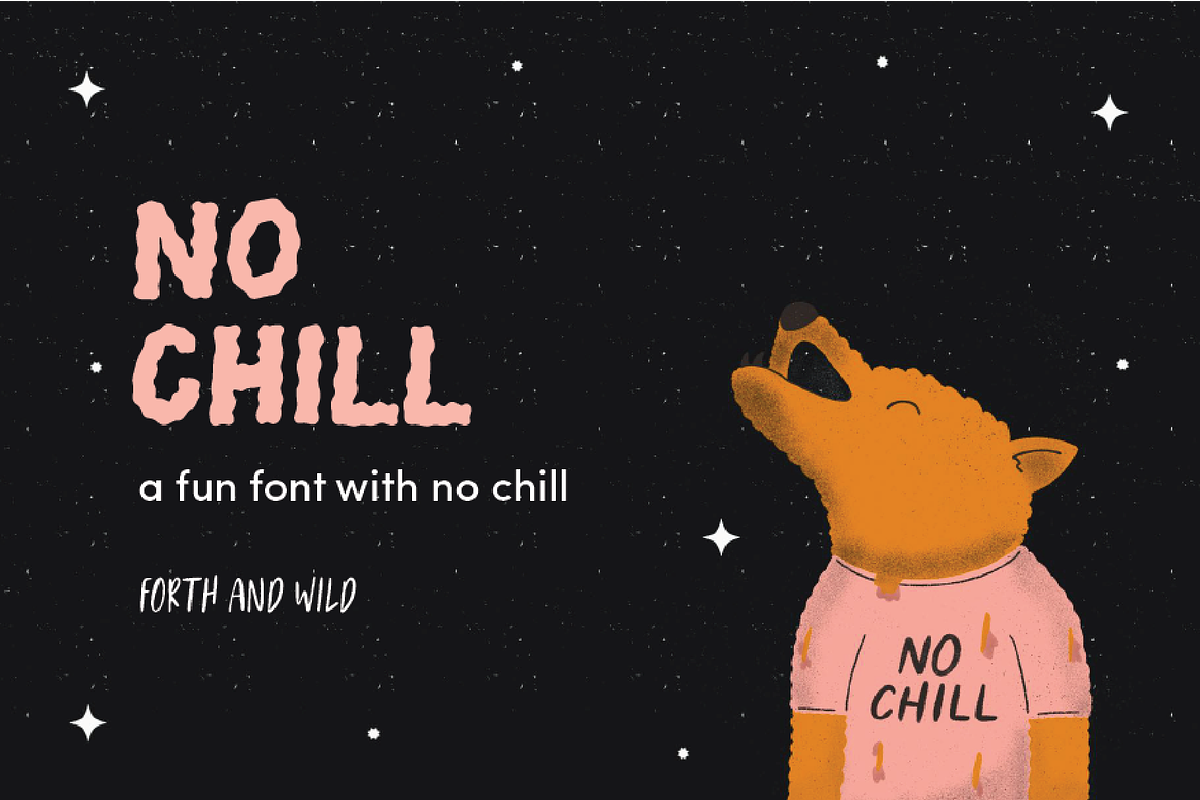
No Chill Wavy Display Font Free Download is a bold, playful, and highly expressive typeface that doesn't hold back. With its fluid, wave-like letterforms and funky attitude, this font is perfect for music posters, trendy apparel, edgy branding, street-style graphics, and youth-centered marketing campaigns.
Designed to capture attention, No Chill radiates energy and movement—bringing a chaotic yet cool vibe to any layout. Its unique aesthetic breaks the mold of traditional display fonts, making it a go-to choice for creatives who want to make a loud, unapologetic statement.